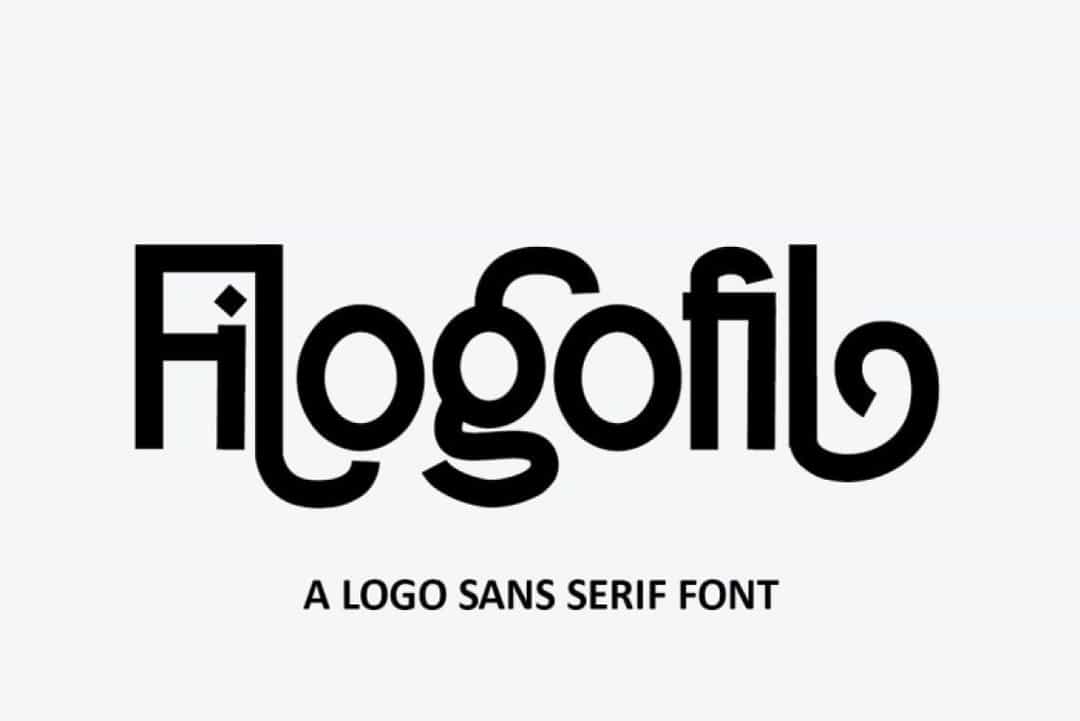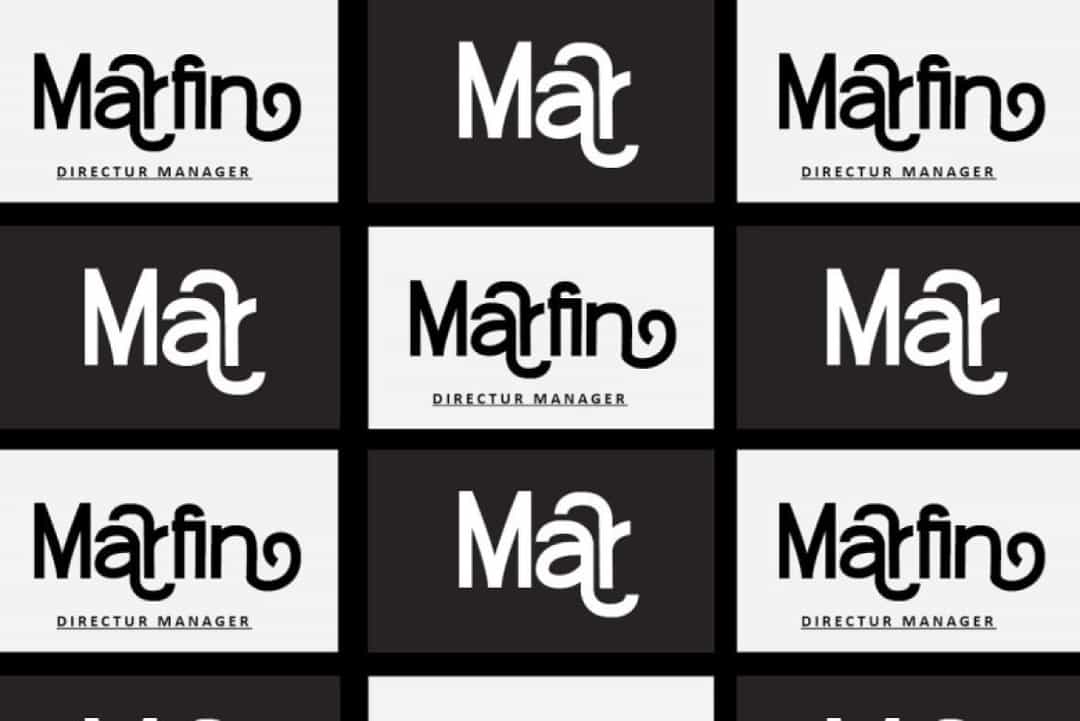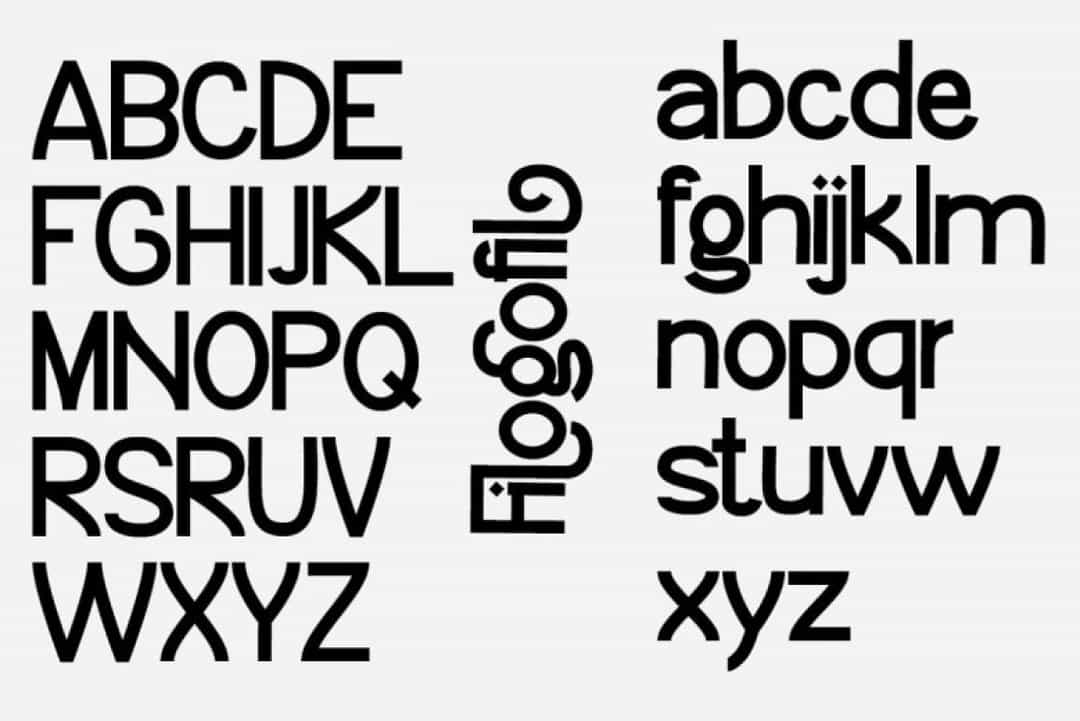
Filogofil is an elegant style created with Sans Serif Logo font. Drawing inspiration from various philosophies and logos, Filogofil provides strong, uncompromising style which can be experienced through controlled forms with contemporary twist. Combining sharp lines with soft curves makes this font perfect for logo design projects of all kinds.